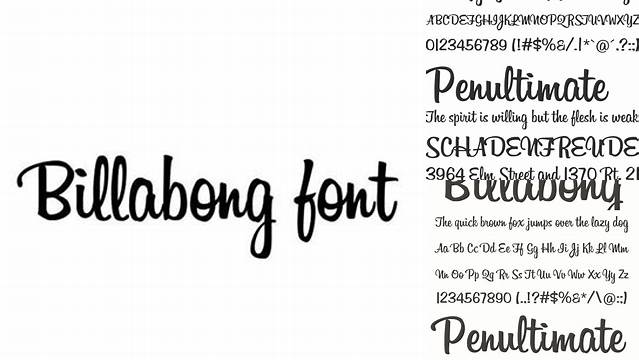
Billabong Bold Font: Free Download & How To Use It
Are you looking to infuse your projects with a bold and distinctive flair? The Billabong Bold font might just be what you need, guys! It’s a fantastic typeface that brings a touch of casual elegance and strong visual appeal to any design. Whether you're working on branding materials, posters, web designs, or even personal projects, the Billabong Bold font can significantly enhance your work. In this comprehensive guide, we’ll dive deep into everything you need to know about this font, including where to find it for free, how to download and install it, and creative ways to use it in your projects. So, let’s get started and explore the world of the Billabong Bold font!
The Billabong Bold font is a stylish and versatile typeface known for its thick, flowing lines and unique character shapes. It exudes a sense of effortless cool, making it a popular choice for various design applications. Its bold weight ensures high readability and impact, whether used in headlines, logos, or body text. This font has been used extensively across different platforms, from digital graphics to print media, showcasing its adaptability and enduring appeal. One of the key reasons for its popularity is its ability to strike a balance between being eye-catching and maintaining a sense of sophistication. The curves and edges of each letter are carefully crafted to create a harmonious and visually pleasing appearance. This attention to detail makes the Billabong Bold font a favorite among designers who seek a typeface that can convey both strength and elegance. Moreover, its distinctive look helps brands and individuals stand out in a crowded marketplace. By using this font, you can add a touch of personality and flair to your projects, making them more memorable and engaging for your audience. Whether you’re designing a logo for a surf shop or creating promotional material for a fashion brand, the Billabong Bold font offers a unique and compelling way to communicate your message. It’s a typeface that not only looks good but also helps to tell a story, adding depth and character to your visual communications.
Now that you've got the Billabong Bold font installed, it’s time to unleash its potential and explore the creative ways you can use it in your projects. This font is incredibly versatile and can add a unique touch to various designs, from branding to digital art. Let's dive into some exciting ideas! One of the most impactful ways to use the Billabong Bold font is in logo design. Its bold and flowing lines make it perfect for creating memorable and eye-catching logos. Whether you're designing a logo for a surf shop, a clothing brand, or a creative agency, this font can help convey a sense of style and personality. Experiment with different letter combinations and spacing to create a logo that truly stands out. Another fantastic application for the Billabong Bold font is in headline design. Its strong presence ensures that your headlines grab attention and make a statement. Use it for website headers, poster titles, or even book covers. The font’s readability and visual appeal make it an excellent choice for conveying important messages quickly and effectively. Social media graphics are another area where the Billabong Bold font can shine. Use it to create engaging and shareable content for platforms like Instagram, Facebook, and Twitter. Its distinctive look can help your posts stand out in a crowded feed. Try using it for quotes, announcements, or promotional graphics. In the realm of branding and marketing materials, the Billabong Bold font can add a touch of sophistication and style. Use it on business cards, brochures, and flyers to create a cohesive and professional look. Its unique character helps to reinforce your brand identity and make a lasting impression. For personal projects, such as invitations, greeting cards, and scrapbooking, the Billabong Bold font can add a personal and creative touch. Its playful yet elegant style makes it perfect for adding a bit of flair to your special occasions. In web design, the Billabong Bold font can be used for headings, navigation menus, and call-to-action buttons. Its clear and bold appearance ensures that key elements on your website are easily noticed. Just remember to use it sparingly to maintain a clean and user-friendly design. By experimenting with these different applications, you’ll discover the versatility and charm of the Billabong Bold font, and how it can transform your creative projects.
Alright, guys, we’ve covered everything you need to know about the Billabong Bold font, from finding it for free to creatively using it in your projects and troubleshooting common issues. This font is a fantastic asset to have in your design toolkit, offering a unique blend of boldness and style that can elevate any project. Remember, the key to making the most of this font is to use it thoughtfully and creatively. Experiment with different applications, from logos and headlines to social media graphics and branding materials, to discover its full potential. Whether you’re a seasoned designer or just starting out, the Billabong Bold font can add a touch of flair and sophistication to your work. By following the tips and guidelines we’ve discussed, you can ensure a smooth installation and seamless integration of this font into your workflow. And if you ever run into any problems, the troubleshooting steps we’ve covered should help you resolve them quickly and efficiently. So go ahead, download the Billabong Bold font, and start creating amazing designs that stand out from the crowd. Let your creativity flow, and enjoy the unique character and charm that this font brings to your projects. Happy designing!